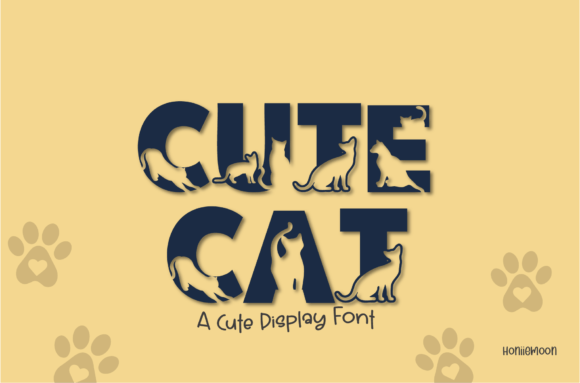
Introducing the Cute Cat Font - the perfect addition to your creative arsenal! Designed by Honiiemoon, this cool and fun decorative font is guaranteed to inject personality into any project.
Looking for the best font for an anniversary card? Look no further than Cute Cat! Its playful and jolly aesthetic will bring a smile to your loved one's face, and make your message stand out from the crowd.
But that's not all - Cute Cat is a versatile font that can be used for a range of design projects. Its bold and colorful display is perfect for creating eye-catching logos, posters, social media graphics, and more.
So why should you download Cute Cat? Because it will take your designs to the next level! Whether you're a professional designer or just starting out, this font is the secret weapon you need to elevate your work and stand out from the competition.
Don't miss out on the chance to add Cute Cat to your font collection. Download it now and see for yourself why it's the best decorative font around!